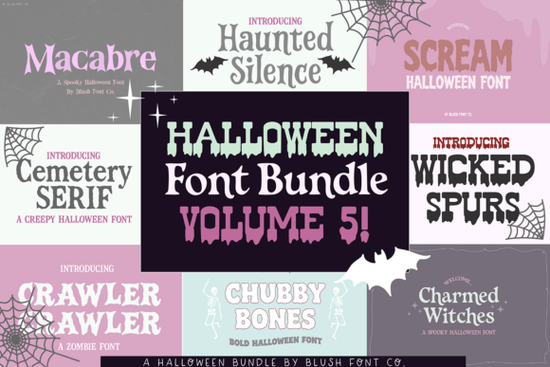
If you're looking for fresh, usable Halloween fonts that actually work across different projects like printable party invites, Cricut vinyl cuts, or Etsy shop graphics the Halloween Bundle Volume 5 Font is a straightforward, no-fuss option. It includes 8 new fonts released this season, all designed with real-world crafting and design needs in mind not just spooky aesthetics. Each one has been tested for legibility at small sizes (think treat bag tags), clean vector outlines for cutting machines, and OpenType features where helpful. No overpromising, no filler just fonts you can open and use today.
What’s actually in the bundle?
This isn’t a rehash of older styles. Volume 5 brings eight distinct typefaces, each with its own tone and technical strengths:
- Bone Chiller Serif – A sharp, slightly asymmetrical serif with high contrast, great for elegant event posters or engraved-style SVGs.
- Zombie Typewriter – Monospaced with intentional ink smudges and uneven baselines; works well for “haunted letter” social posts or printable scavenger hunt clues.
- Ghoul Grotesk – A rounded, friendly sans-serif that avoids looking too childish ideal for kids’ party supplies or café chalkboard signs.
- Cryptic Script – A connected, flowing script with alternate glyphs (accessible via font software like Adobe Illustrator or Affinity Designer), useful for invitations or logo accents.
- Graveyard Gothic – A tight, condensed display font with subtle jagged edges perfect for t-shirt slogans or Instagram story banners.
- Pumpkin Patch – A playful, slightly bouncy sans with uneven stroke weights; great for sticker sheets or digital planner elements.
- Witch’s Ledger – A faux-handwritten font with ink blot textures and variable line thickness works nicely for potion labels or DIY spellbook pages.
- Midnight Marquee – A retro neon-inspired display font with built-in “glow” effect layers (as separate .otf files), handy for layered SVG files or lightbox-style designs.
How do these compare to other popular Halloween fonts?
Unlike some seasonal bundles that lean heavily on novelty or hard-to-read flourishes, these fonts balance personality with practicality. For example, if you’ve used Halloween Bundle Volume 5 Font Display Fonts, you’ll notice tighter spacing and improved kerning pairs here especially helpful when scaling down for iron-on transfers. It’s also more cohesive than mixing standalone fonts like Kabisat Font, which leans minimalist and modern, or It’s Me Hello Regular Font, which has a softer, handwritten charm better suited for birthday themes than October. You’ll find less overlap with Fishtail Monogram Regular Font (great for initials but not full phrases) and a more consistent Halloween mood than Ransom Note Magazine Font, which excels at chaotic energy but doesn’t always scale cleanly.
Where do these fonts work best?
Real users report success with:
- Print-on-demand shops: Using Graveyard Gothic and Ghoul Grotesk on Redbubble or Teespring both hold up well on dark fabric backgrounds and render clearly at thumbnail size.
- Cricut and Silhouette users: All fonts include clean, single-line versions where needed (especially Zombie Typewriter and Cryptic Script), making them reliable for intricate cut files.
- Small business owners: Pumpkin Patch and Witch’s Ledger are frequently used for local bakery window decals, haunted house signage, and email newsletter headers.
- Educators and homeschoolers: Bone Chiller Serif and Midnight Marquee appear often in printable classroom decorations and reading comprehension worksheets themed around folklore or autumn science units.
One thing to keep in mind: while all fonts support basic Latin characters (A–Z, numbers, common punctuation), extended language support (like accented characters for Spanish or French) is limited to Bone Chiller Serif and Ghoul Grotesk. If you need broader language coverage, pairing one of those with a free Google Font like Creepster or Chonky Pumpkin gives you flexibility without licensing conflicts.
Bottom line: If you’re mid-season and need dependable, on-brand Halloween fonts that don’t require workarounds or extra editing, Halloween Bundle Volume 5 Font fills a specific gap without overcomplicating things.